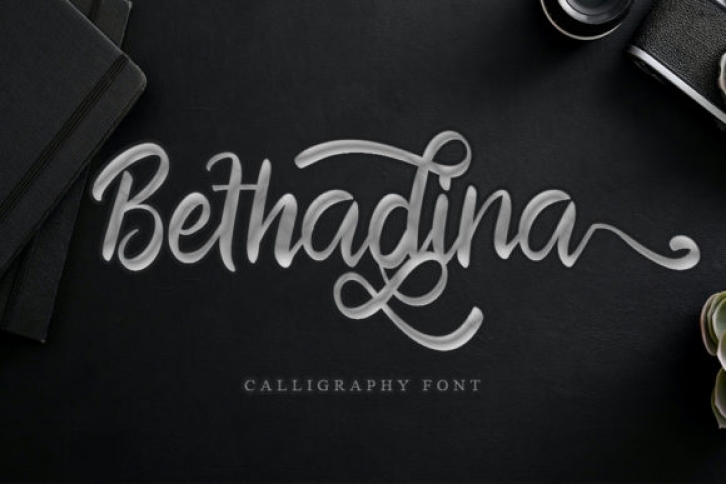
Bethadina is a modern and stylish script font. It has beautiful and well balanced characters and as a result, it matches a wide pool of designs. Add it to your most creative ideas and notice how it makes them come alive!